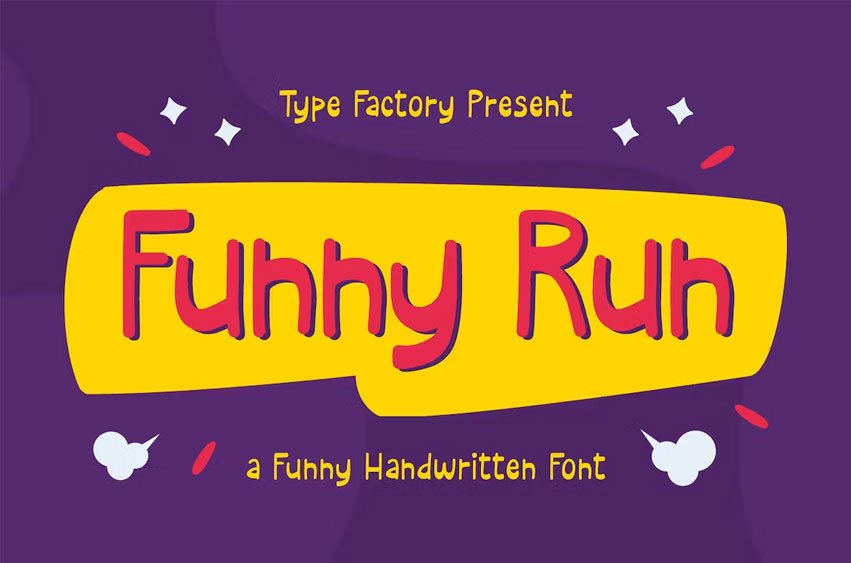
Funny Run Font is a funny and modern handwritten font, carefully handcrafted to become a true favorite. This font will look outstanding in kids-themed designs like coloring book, birthday invitation, playground, kids show event, and many more!